Playful Wedding Fonts for a Joyful and Modern Celebration
Planning a wedding? It’s a whirlwind, right? So many decisions, so many details to juggle. You need to think about the dress, the flowers, the cake, and every other thing. However, amidst all the big choices, don’t forget the small touches that can make a huge difference, the use of fonts. Seriously, the typography you choose, especially if you choose playful wedding fonts, can totally set the tone for your entire celebration. They inject personality and whimsy, giving your guests a taste of what’s to come.
And if you are looking for something less traditional, a little more you, then playful wedding fonts are definitely the way to go. Think about it: do you want your wedding to feel formal and stuffy, or fun and vibrant? The right font can instantly communicate your style and create a sense of excitement. It’s like a little preview of the joy and love you are about to celebrate.
Now, you might be thinking: “Fonts? Is that really important?” The answer is of course, yes. Your wedding invitation, for example, set the first impression on your guests. Additionally, it also affects the entire event. Using a playful font can instantly communicate your style and create a sense of excitement. It is all about those little details coming together to create something truly special.
So, if you are ready to ditch the boring Scripts and embrace a more fun approach, then you’ve come to the right place. In this article, we’re diving deep into the world of playful wedding fonts. Moreover, we will explore different styles, offer tips for choosing the perfect typeface for your wedding theme, and give you tons of inspiration for using playful wedding fonts on your big day. Get ready to find the font that perfectly captures your unique love story!
Tips for Using Playful Wedding Fonts
- Consistency: Ensure the font you choose is used consistently across all your wedding materials—from invitations to menus to place cards. Consistency helps create a cohesive look and reinforces the theme of your wedding.
- Readability: While playful fonts add personality, make sure they are easy to read, especially on smaller items like RSVP cards or thank you notes. If a font is too intricate, it might become difficult to read when scaled down.
- Pairing Fonts: Pair your playful font with a complementary, simpler font to maintain balance and legibility. Using a secondary font for body text or additional information can help avoid visual clutter and ensure that important details are easy to read.
- Color Coordination: Choose font colors that complement your wedding theme and overall color scheme. Therefore, you need to ensure there is enough contrast between the font color and the background to maintain readability.
The Best Playful Wedding Fonts for Joyous Celebration
White Birds
The first on the list is White Birds. This is a font with handwritten style designed to catch people’s attention. Its cursive style and line characteristics show the fun, elegant, and modern nuances. It is definitely perfect for designing wedding invitations, name cards, banners, logos, and more.
Mellisa Jonathan
Next up is Mellisa Jonathan. This font was made specifically as a gorgeous wedding font. Its cursive style is fun yet lovely, making it ideal for a less formal wedding theme while yet conveying a romantic vibe.
Angelia
And then we have Angelia. A beautiful modern script that looks both playful and fun. It features six ligatures, 9 alternates, and has multilingual supports. Angela is ideal for weddings, branding, logotypes, quotes, etc.
Melyana
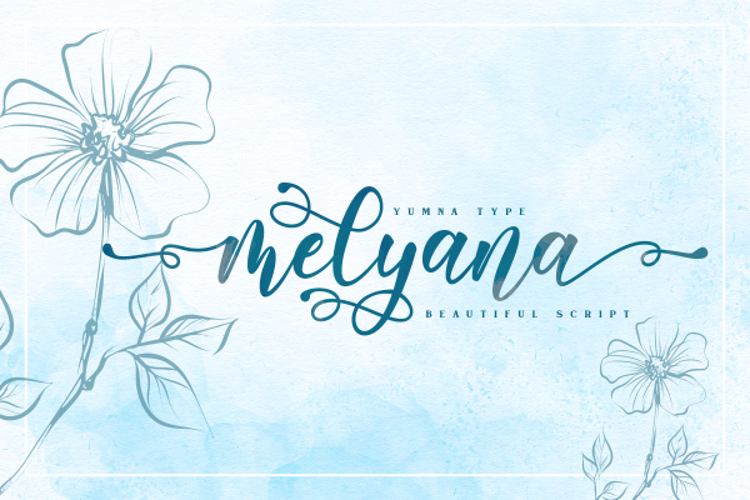
Say hello to Melyana, one of our most charming and playful wedding fonts. It is a lovely script typeface featuring numerous ligatures and alternates. Furthermore, the interesting swashes give it a whimsical and romantic appeal. Your wedding invitation will never look awful if you choose this font.
Sweet Candy
Now we have Sweet Candy. This beautiful modern script font exudes sweetness in each of its strokes, making it perfect for a fun and playful celebration like birthday parties, wedding invitations, female product branding, and more.
Kathiya
One of our most playful wedding fonts we have is Kathiya. Kathiya is a beautiful and modern script.
It brings a beautiful and modern typeface that is best used for weddings, branding, logotype, and quotes. It is complete with various ligatures and beautiful swashes.
Southern
Next on the list is Southern. This beautiful script font evokes a sense of elegance and softness in each of its strokes. Southern is ideal for designing beauty product packaging, wedding invitations, self-love quotations, and more.